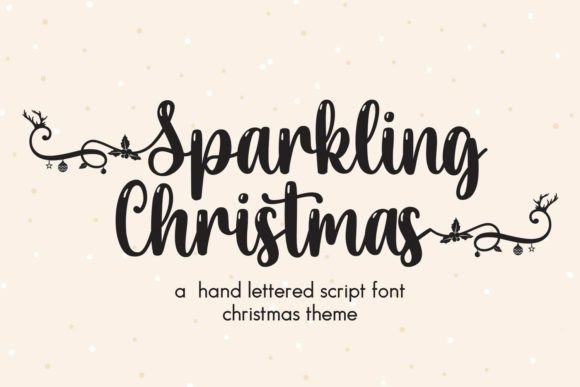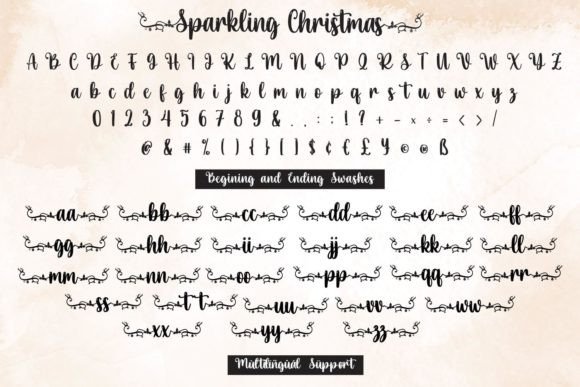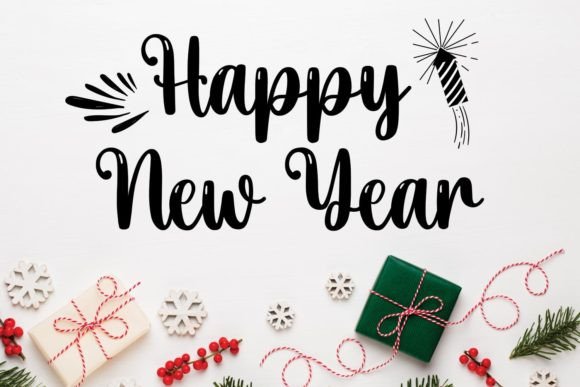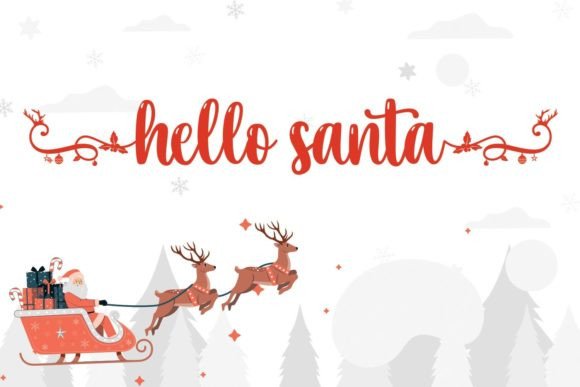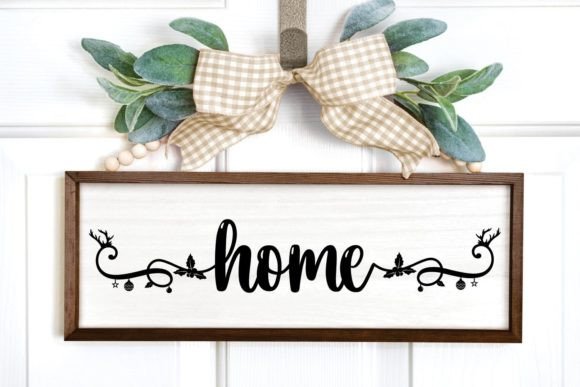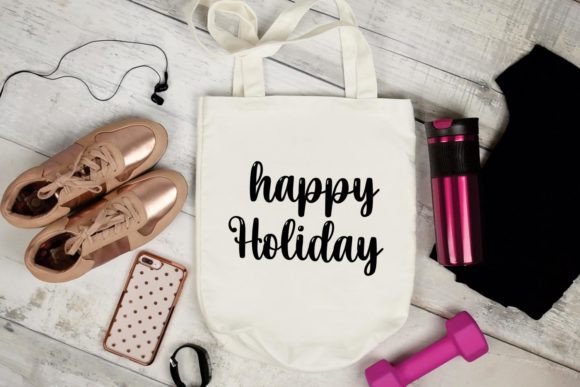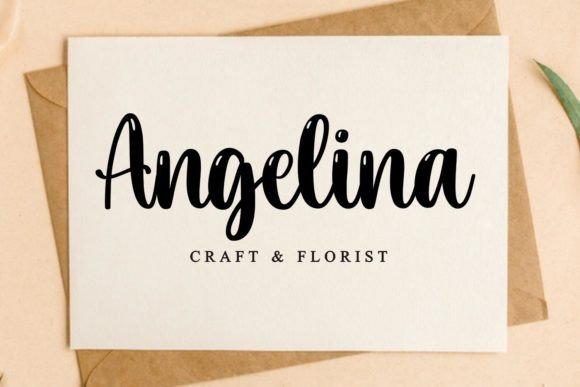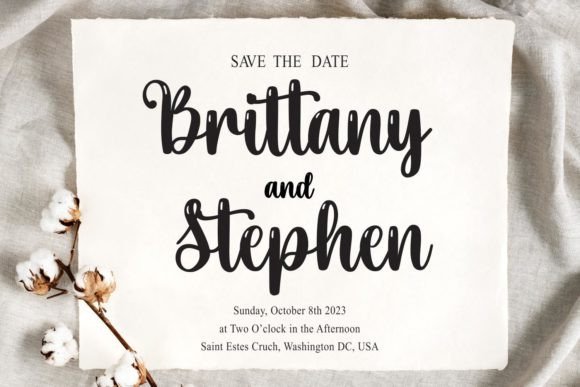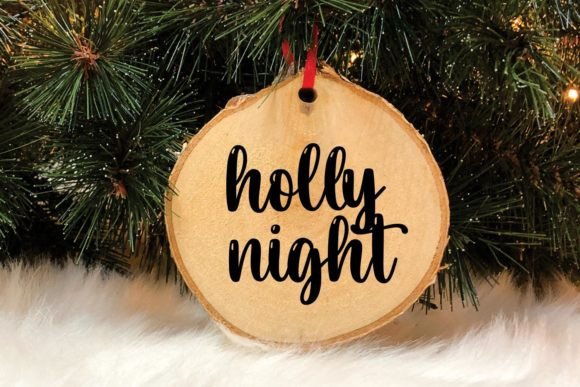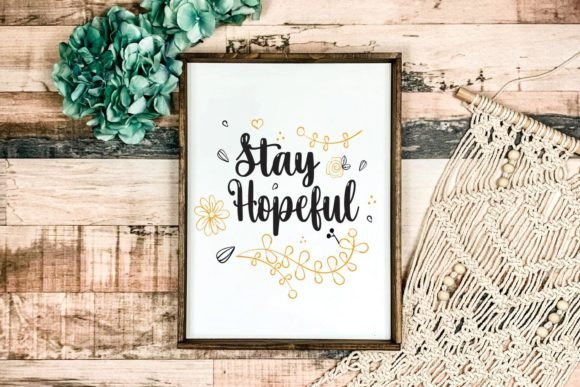
Sparkling Christmas Font
Sparkling Christmas Font: Elevate Your Holiday Designs
When it comes to adding a touch of charm and whimsy to your holiday projects, the Sparkling Christmas font stands out as an exceptional choice. This handcrafted script font brings a unique and natural feel to your designs, making it ideal for any festive occasion.
Key Features of Sparkling Christmas Font
• Quirky and Hand-drawn Style: More than just a typeface, it embodies the holiday spirit itself.
• Versatility: Perfect for various projects, from wedding invitations to blog decorations.
• Exceptional Design: Every curve, swirl, and stroke has been meticulously crafted.
• PUA Encoding: Easily access all unique glyphs, swashes, and ligatures for customization.
Applications of Sparkling Christmas Font
Crafting and DIY Projects
Sparkling Christmas font shines in crafting projects where a personalized touch is key. Use it for creating unique holiday decorations, custom gifts, or eye-catching greeting cards. Its hand-drawn style adds warmth and authenticity to your creations.
Branding and Marketing
For businesses looking to add a festive flair to their branding during the holiday season, Sparkling Christmas font is an excellent choice. It can be used for logo design, social media graphics, and promotional materials, helping your brand stand out during this competitive time of year.
Digital Design
In the digital realm, Sparkling Christmas font excels in creating engaging website headers, email newsletters, and social media posts. Its festive appearance can help capture the attention of your audience and convey the joy of the season.
Why Choose Sparkling Christmas Font?
Sparkling Christmas font is more than just a typeface; it’s a creative tool that will inspire and delight. Its quirky charm and adaptability make it a must-have for anyone looking to make their holiday and Christmas-themed projects truly shine.
The font’s PUA encoding allows for easy access to all its unique features, enabling you to customize your text extensively. Whether you’re creating a stunning headline or adding a decorative flourish to a project, Sparkling Christmas font provides the flexibility you need.
By incorporating Sparkling Christmas font into your design toolkit, you open up a world of creative possibilities. Its versatility allows it to pair well with other fonts, making it an excellent choice for typography-focused designs. The font’s natural, hand-drawn feel can add a personal touch to any project, making your designs feel more authentic and engaging.
In conclusion, Sparkling Christmas font is an invaluable asset for designers and creatives looking to infuse their holiday projects with charm and personality. Its unique blend of festive spirit and artistic flair makes it stand out in the crowded world of holiday fonts. Whether you’re a professional designer or a DIY enthusiast, Sparkling Christmas font will help you create memorable and impactful designs that capture the magic of the season.